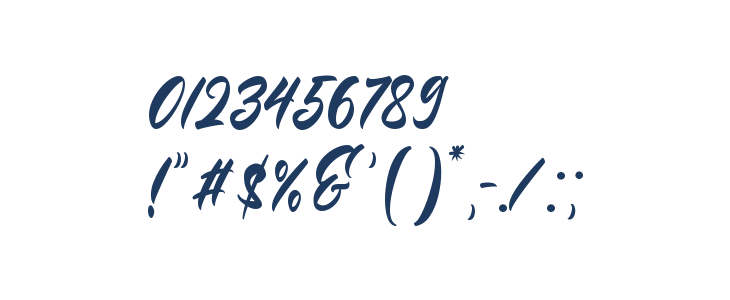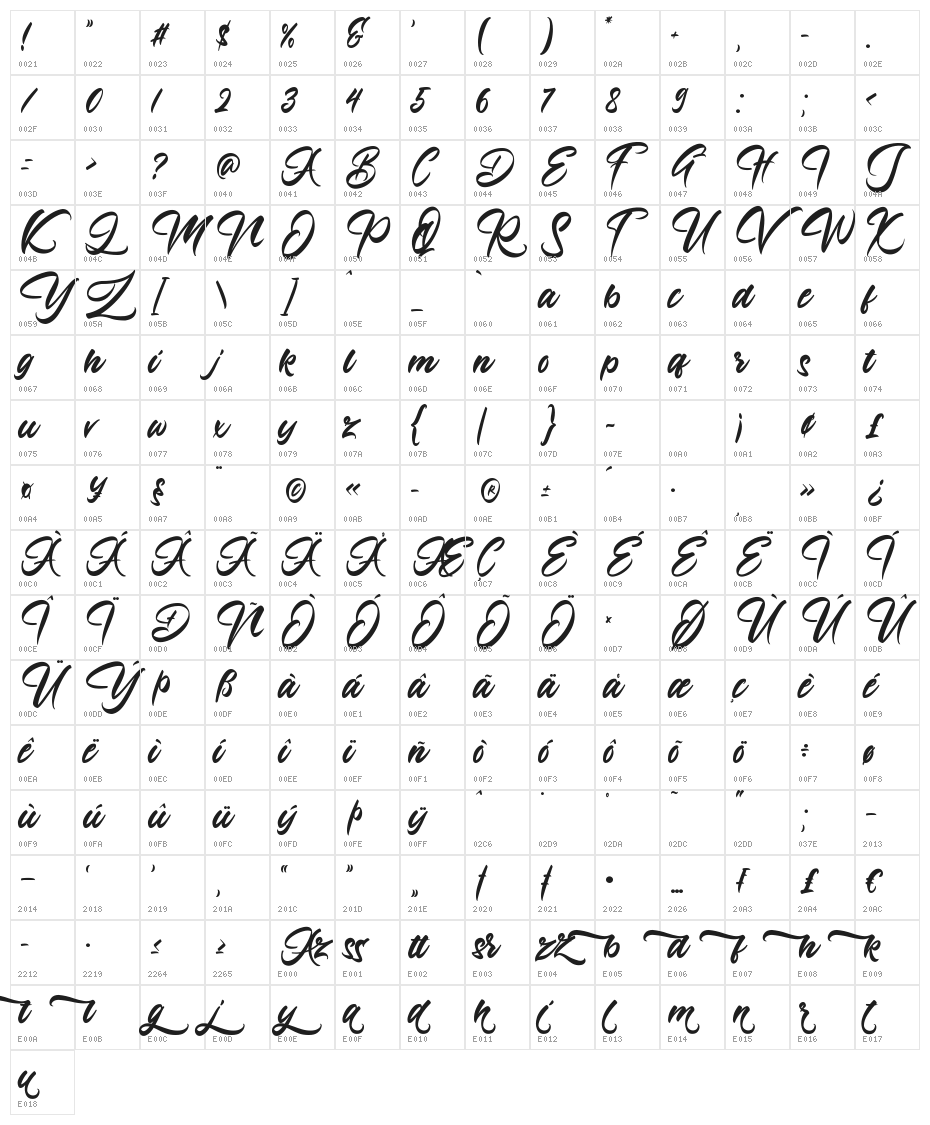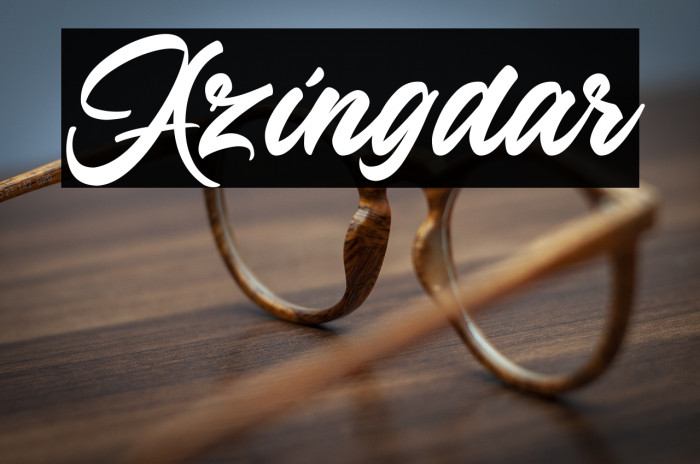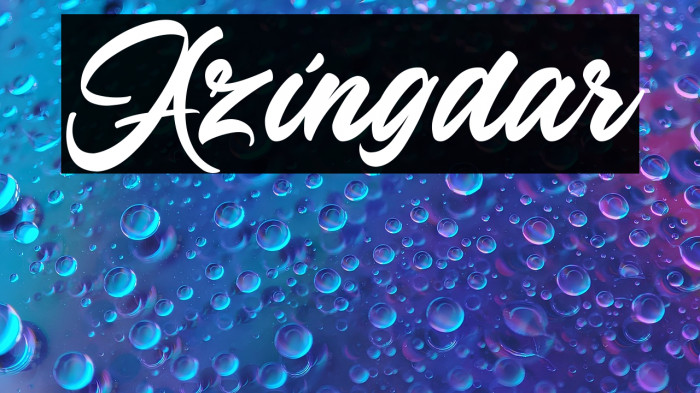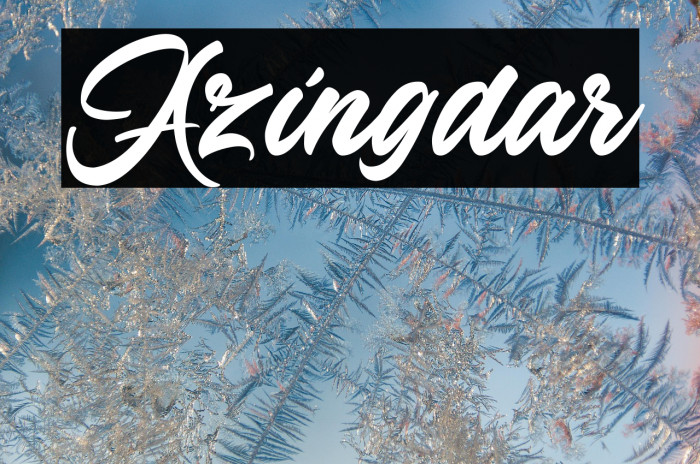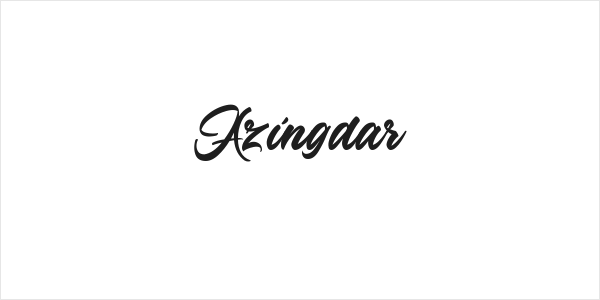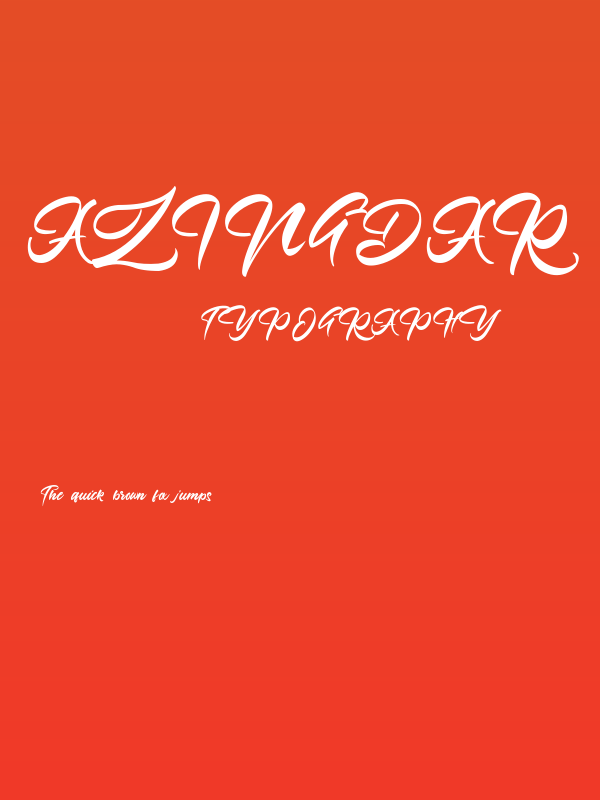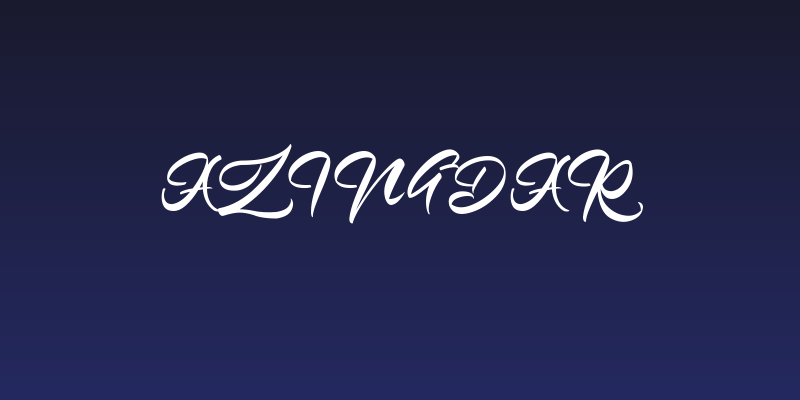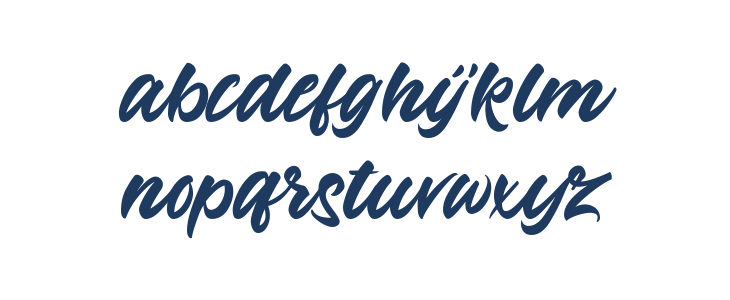
Azingdar Font
Azingdar Description
This font features a bold, flowing script style that exudes elegance and sophistication. The uppercase letters are intricately designed with sweeping curves and flourishes, giving them a sense of movement and grace. The lowercase letters maintain a consistent style, with smooth, rounded forms that complement the uppercase characters. The numerals are equally stylish, with a bold presence that ensures readability. Special characters are crafted with the same attention to detail, making them seamlessly integrate with the rest of the font. This font's overall appearance is both dynamic and refined, making it suitable for a variety of creative applications.
| Overall Style | Elegant |
| Use Case | Logos, Invitations, Branding |
| Proposed Projects | Ideal for wedding invitations, luxury branding, elegant packaging, and artistic posters. |